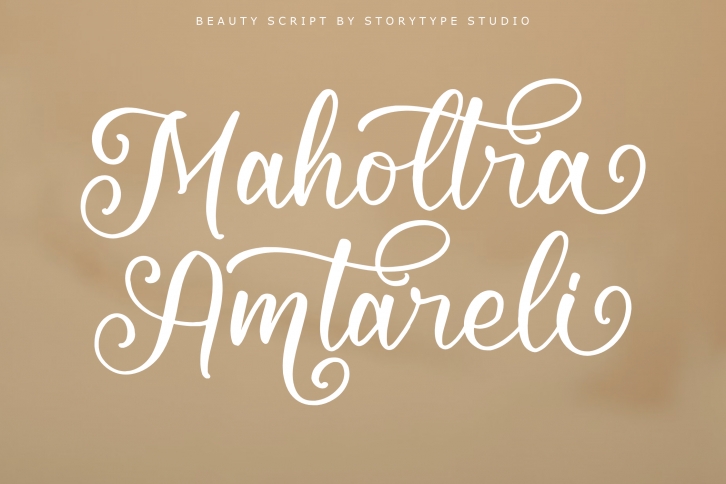
Proudly present Maholtra Amtareli – Beautiful Script , created by Storytype,
A luxury script that has own unique style & modern look.
This typeface is perfect for an elegant & luxury logo, book or movie title design, fashion brand, magazine, clothes, lettering, quotes, and so much more.